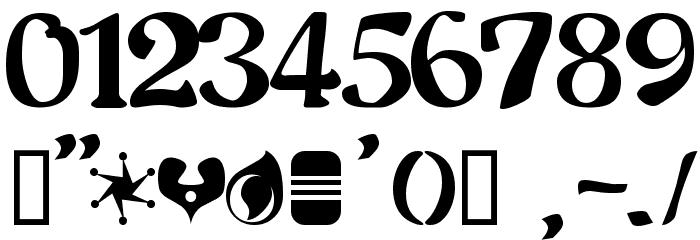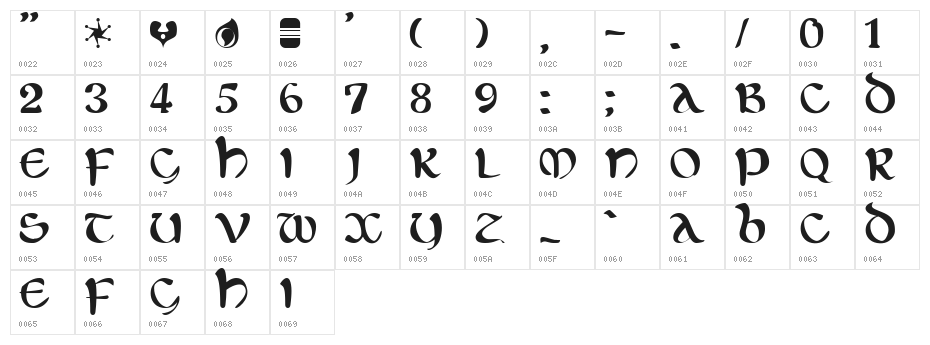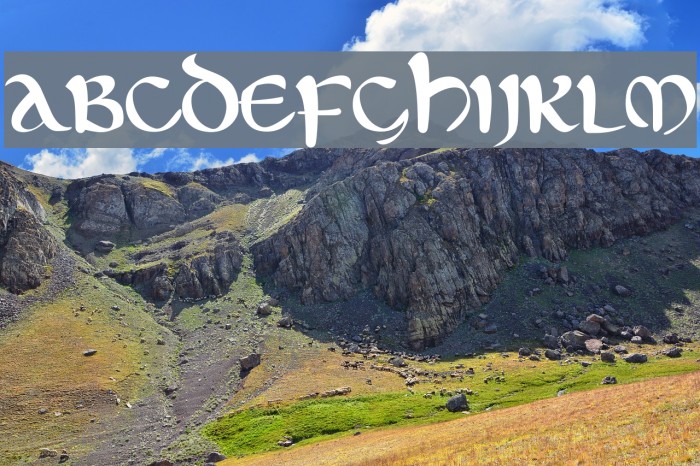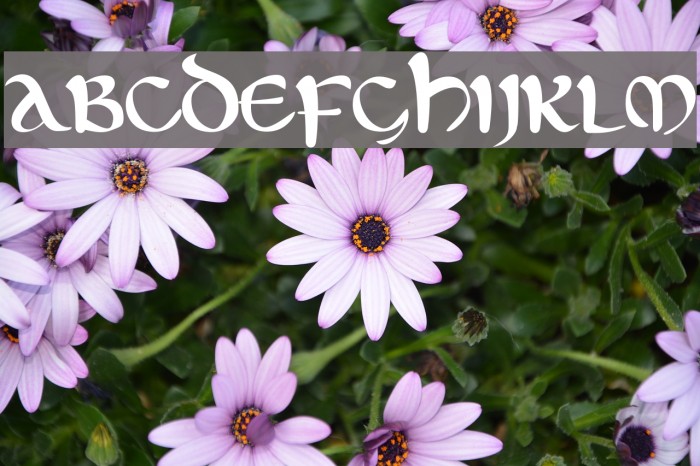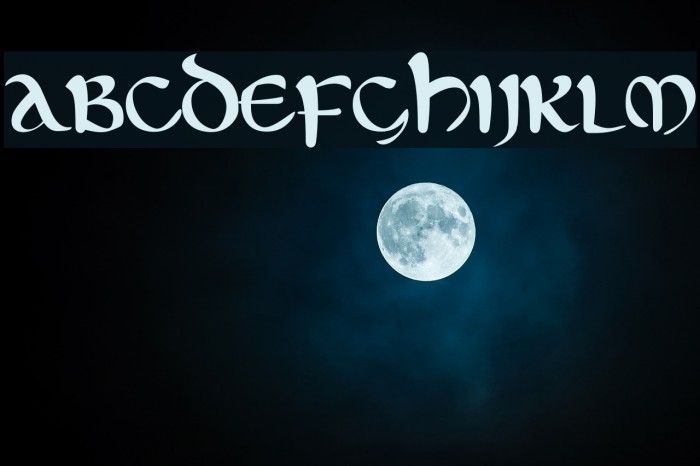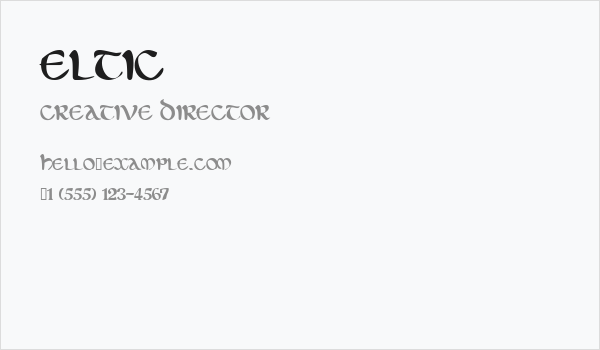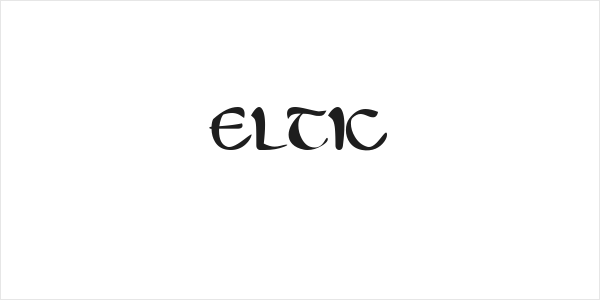
Eltic Font
Eltic Description
This font exhibits a unique blend of calligraphic and modern styles, characterized by its bold, sweeping curves and sharp, angular edges. The uppercase letters are particularly striking, with a strong presence that commands attention. The lowercase letters maintain a fluidity that complements the uppercase, creating a harmonious balance. The numerals are bold and distinctive, ensuring clarity and readability. Special characters are creatively designed, adding a decorative flair. Overall, this font is both artistic and functional, suitable for a variety of design applications.
| Proposed Projects | Ideal for branding, logo design, posters, and artistic projects that require a bold statement. |